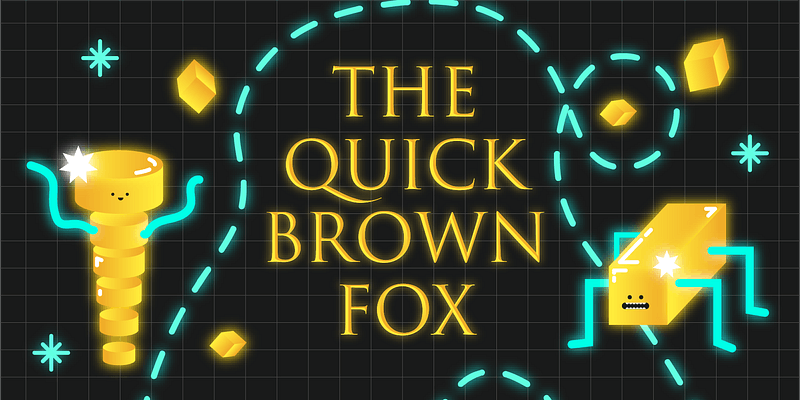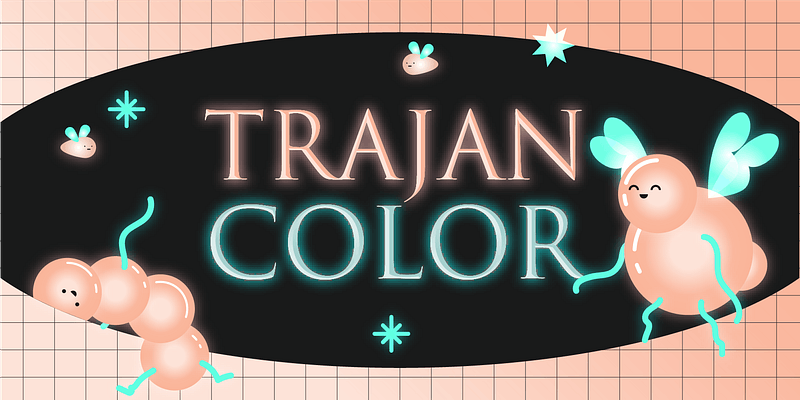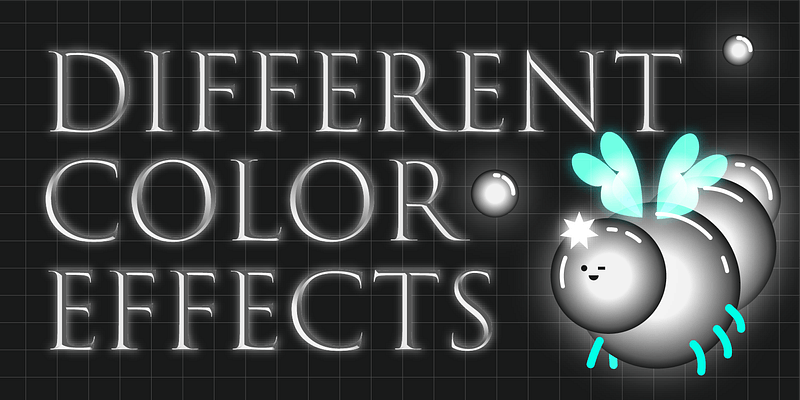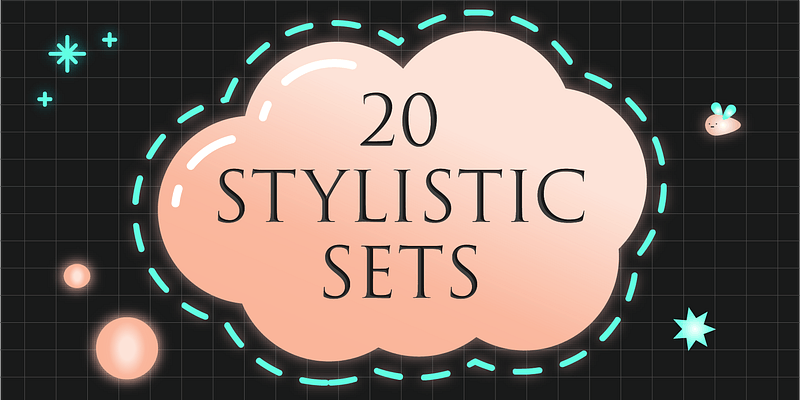
Trajan Color Concept is Adobe’s first color typeface, built with the new OpenType-SVG standard. OpenType-SVG allows type designers to incorporate colors, gradients, transparency, and other rich graphical information into their designs for added visual impact.
Trajan Color typeface in different colors